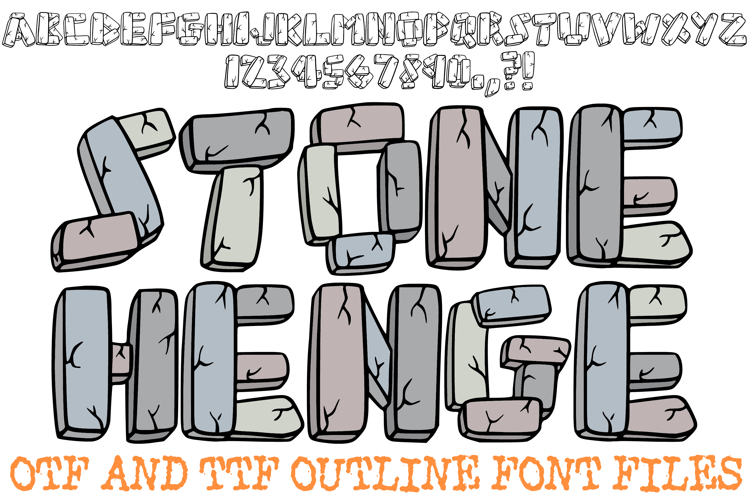
The Stonehenge Font is a massive, hand-drawn display typeface that captures the enduring strength and architectural mystery of ancient stone circles. Featuring heavy, slab-like boulders stacked into iconic trilithon shapes, this font is the perfect choice for historical branding, fantasy gaming assets, adventure-themed decor, and bold "monolith" aesthetic designs.
Each character is meticulously crafted with a weighty, artisan feel, blending smooth, weathered stone surfaces with deep-etched cracks that make your text appear as if it were hewn from ancient bluestone. Whether you are a designer creating titles for a documentary or a crafter working on Neolithic-themed party favors, the Stonehenge Monolith Font adds a monumental, timeless touch to every project.
Why Your Designs Will Stand Out
Artisan Megalithic Lettering: Every letter (A–Z) and number (0–9) features unique, interlocking boulder shapes inspired by the world’s most famous prehistoric monument.
Clean Hand-Drawn Outlines: The bold, well-defined black outlines are optimized for layered paper cutting, heat transfer vinyl, and high-quality sublimation.
Epic & Versatile: The massive weight and "architectural" stone aesthetic make it ideal for museum signage, gaming logos, and impactful outdoor-themed decor.